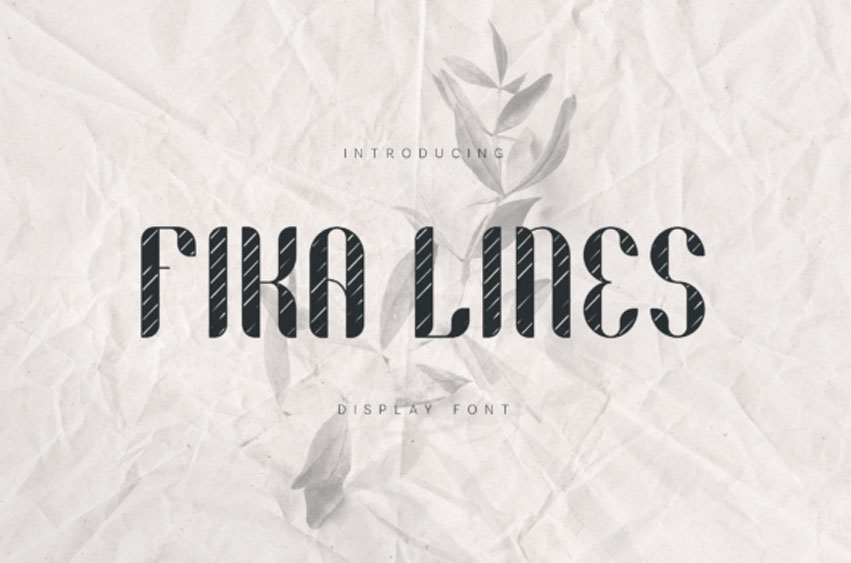
Fika Lines Font is a tall, sophisticated display font that merges modern deco proportions with a distinct textured aesthetic. The typeface features narrow, condensed letterforms with smooth, rounded curves that give it a sleek and rhythmic appearance. Its most defining characteristic is the decorative pattern of diagonal hairline stripes etched across the stems of every character, creating a sense of movement and vintage-industrial flair.